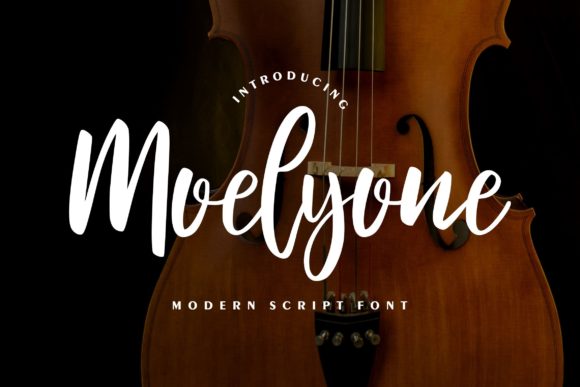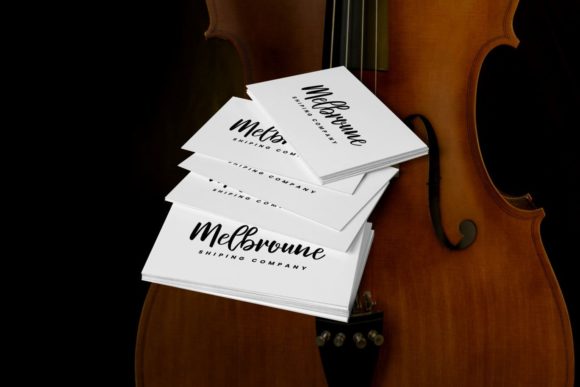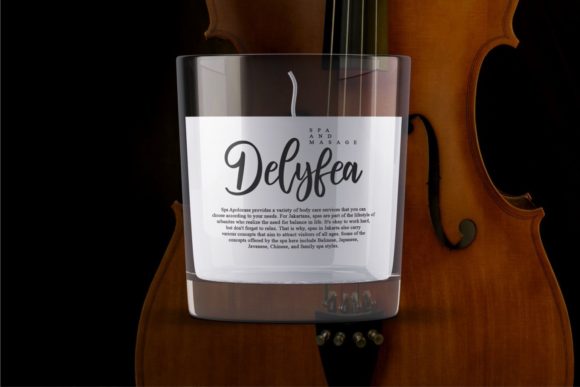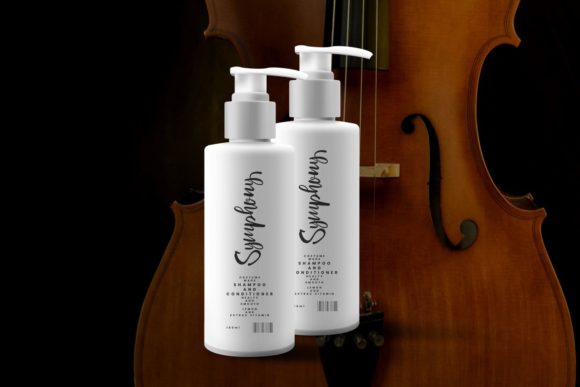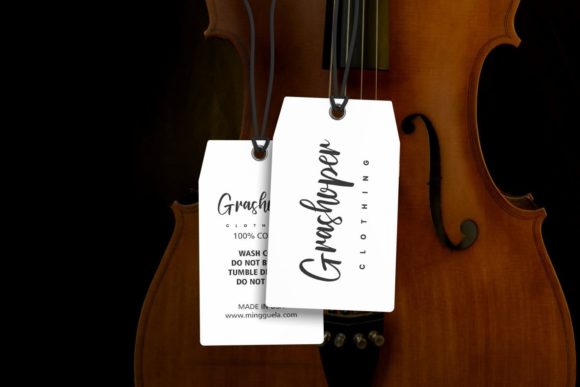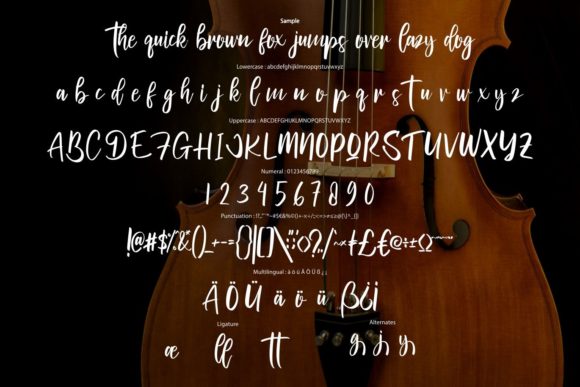
Moelyone Font
About Moelyone Font
Moelyone is a clean and paint brushed handwritten font. No matter the topic, this font will be an incredible asset to your fonts’ library, as it has the potential to elevate any creation.